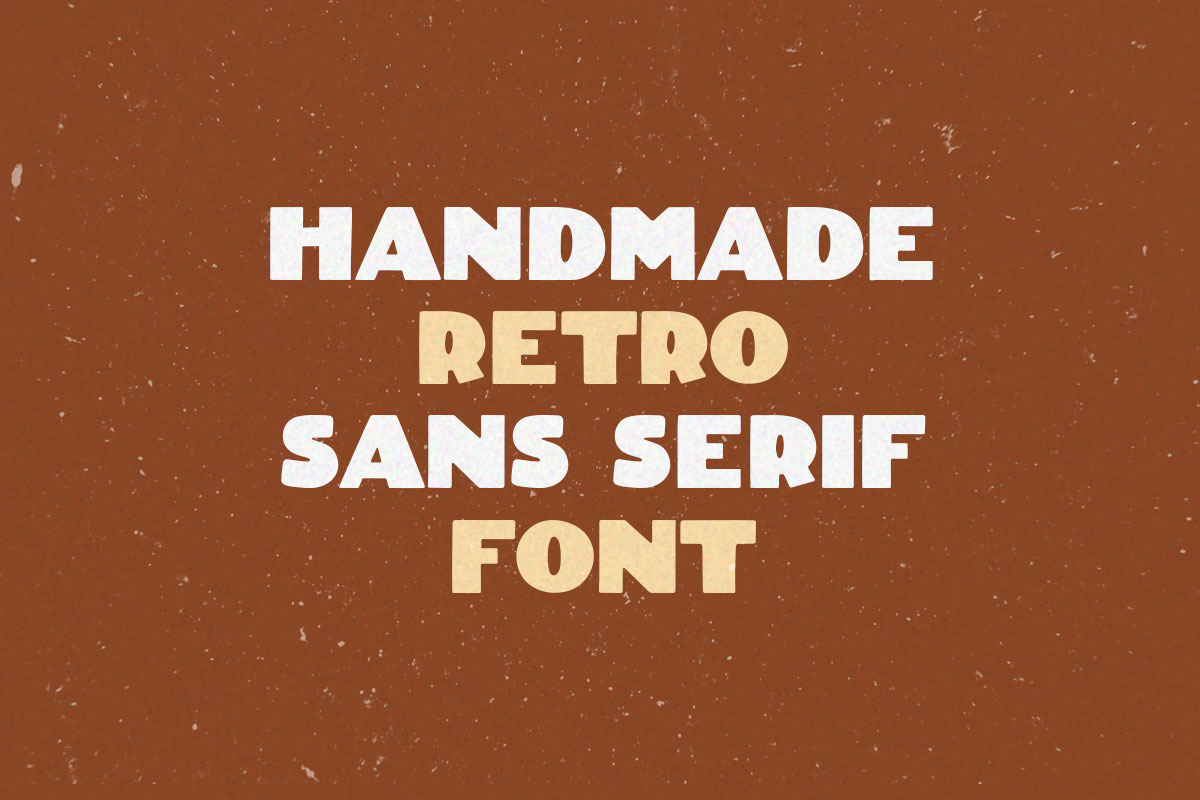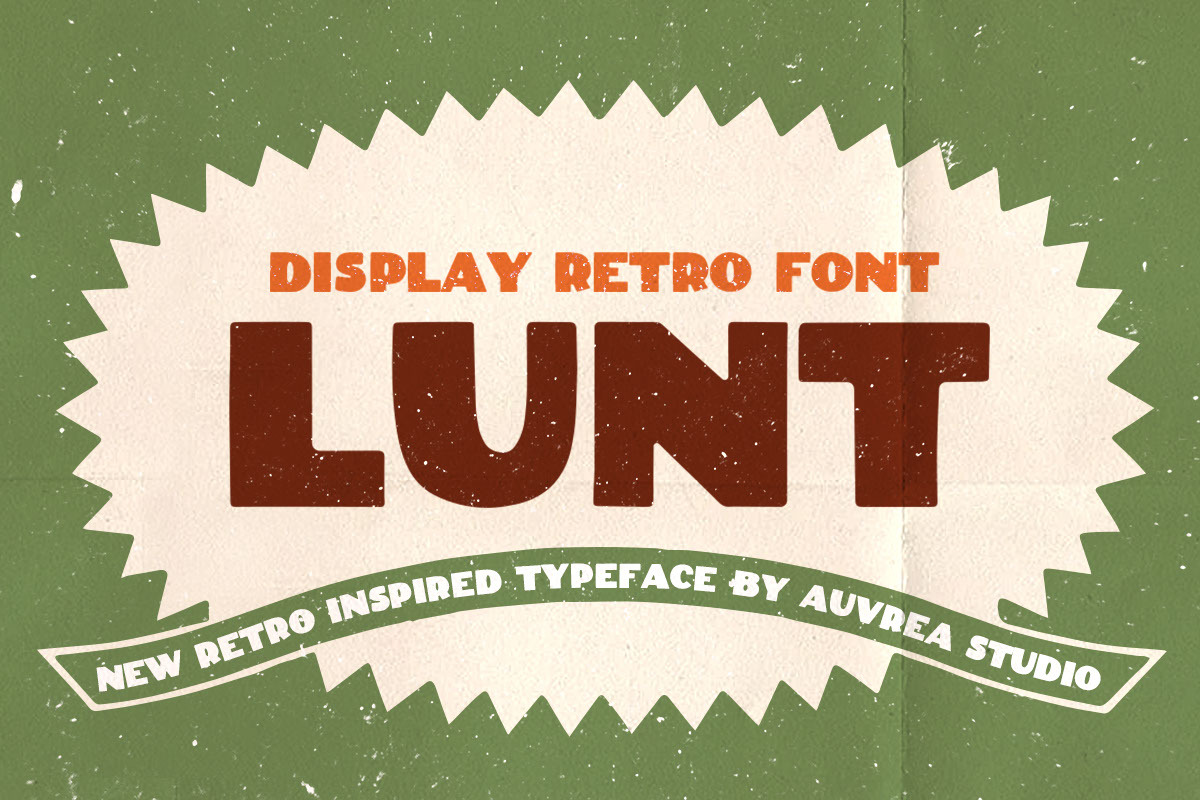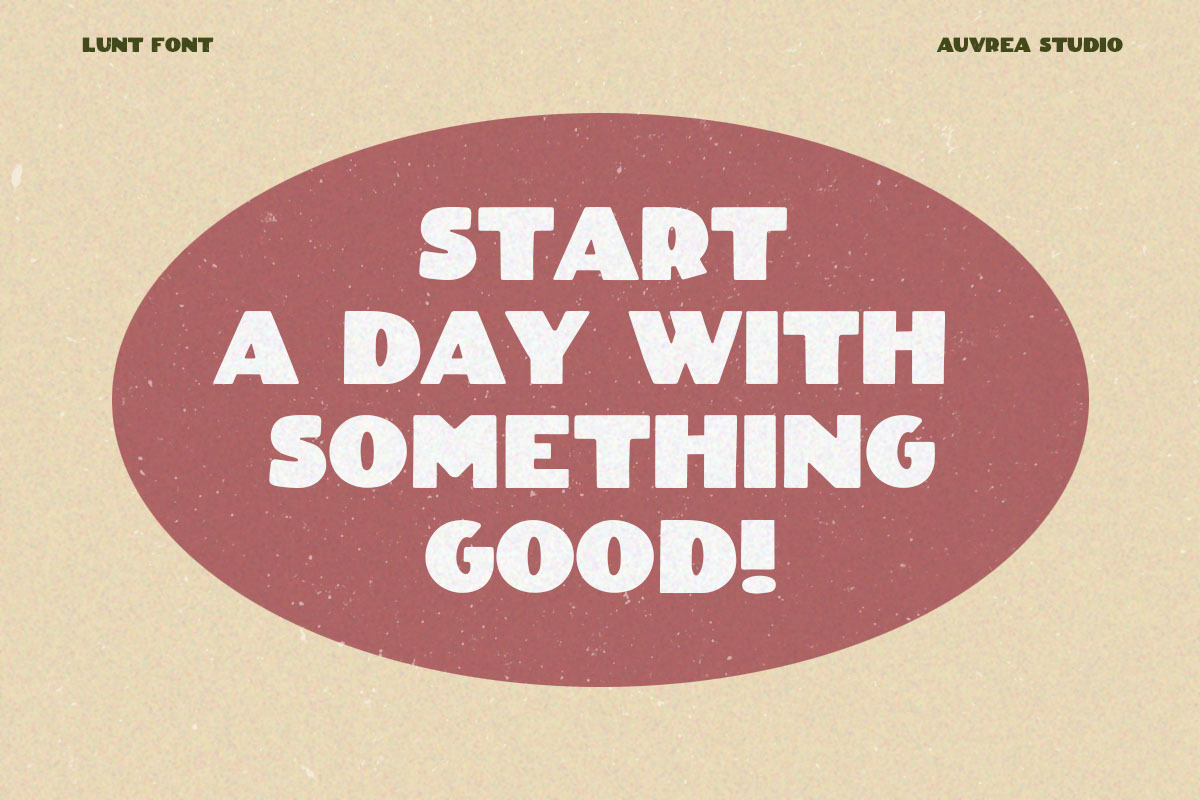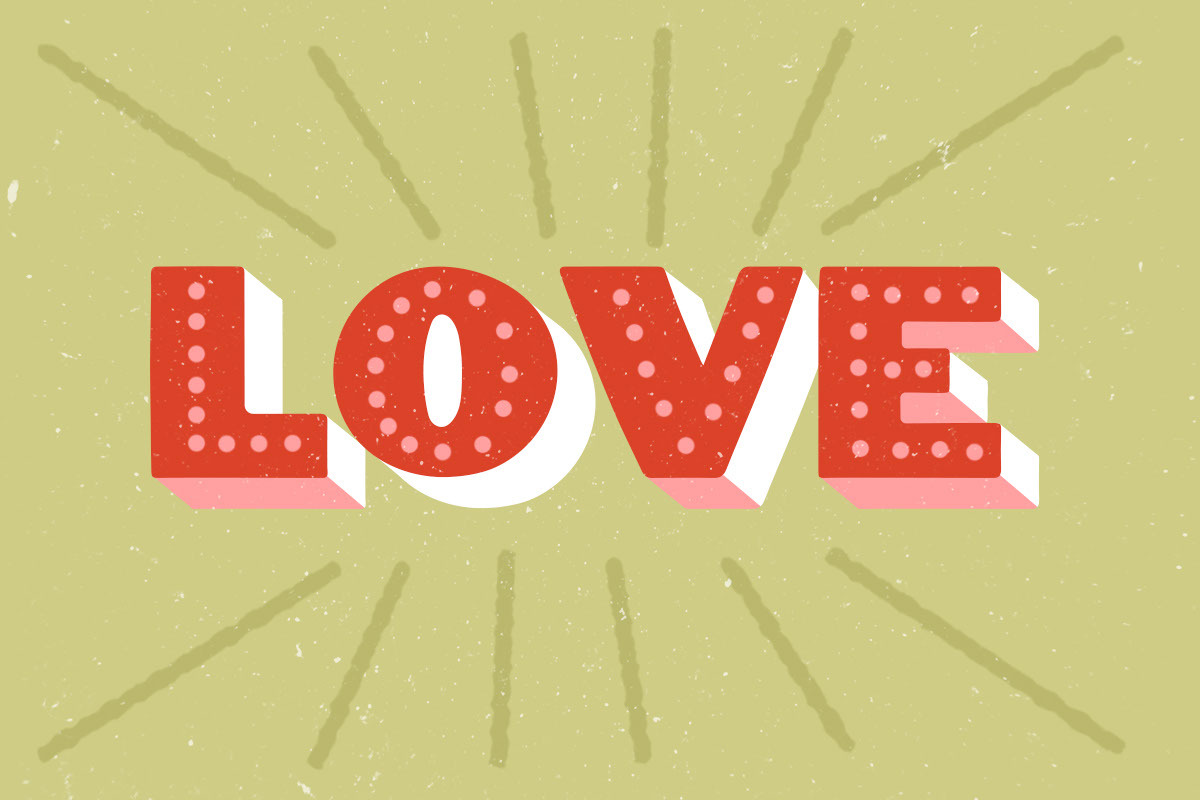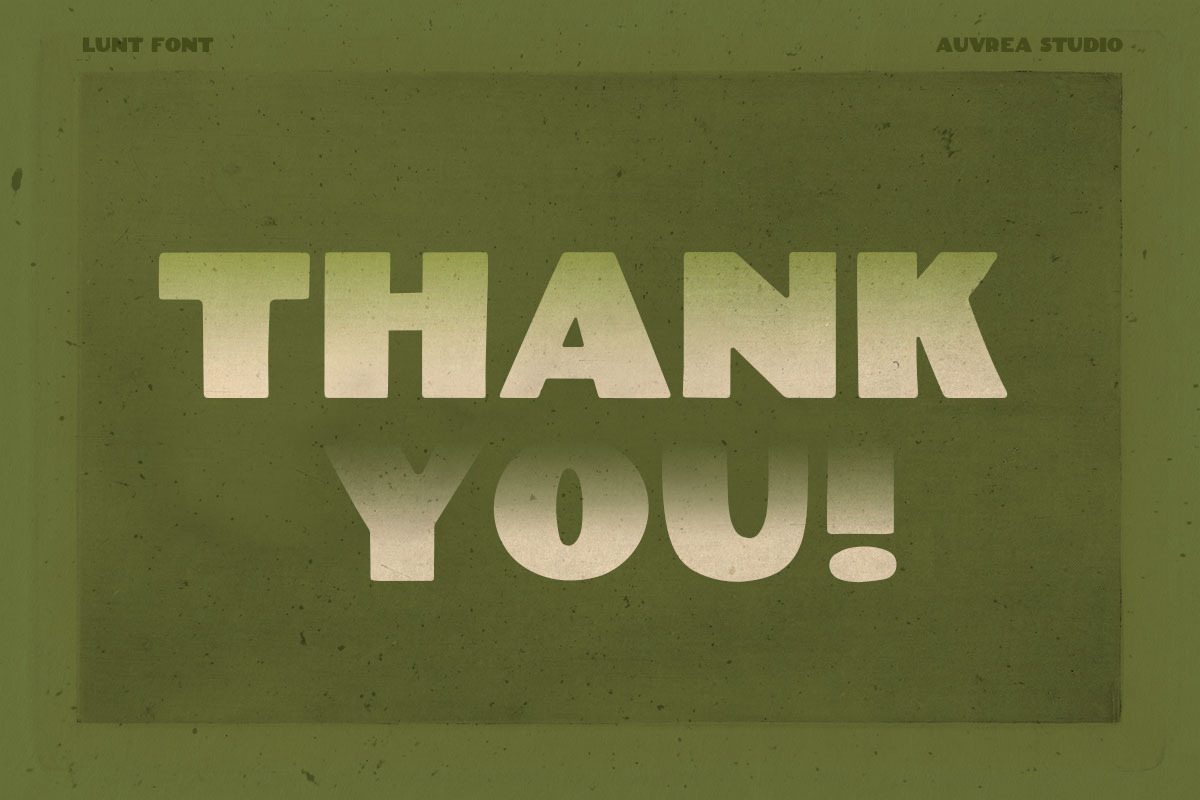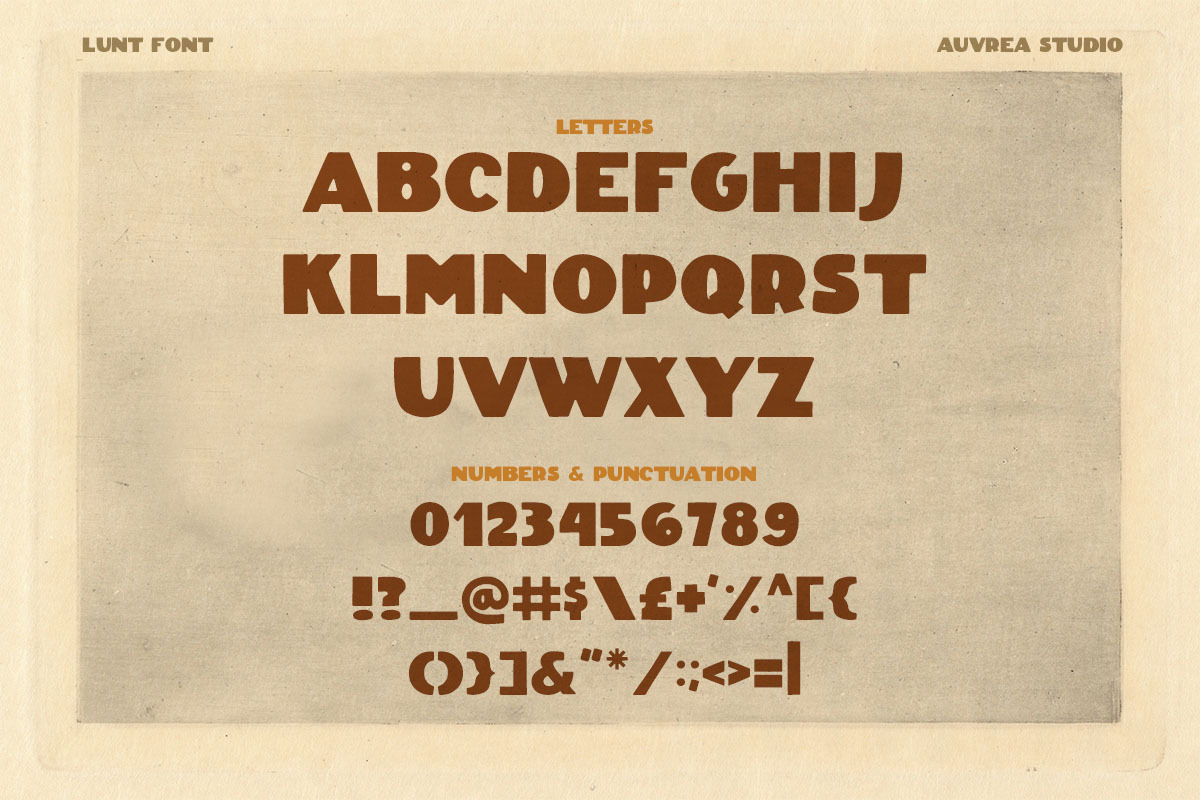
Lunt DISPLAY sans serif RETRO font
Lunt is a bold display sans serif inspired by retro typefaces with soft modern look with round edges.
So with that combination it's perfect for your next design project like logos, magazines, branding, book covers, quotes, shirts, websites or anything in between.